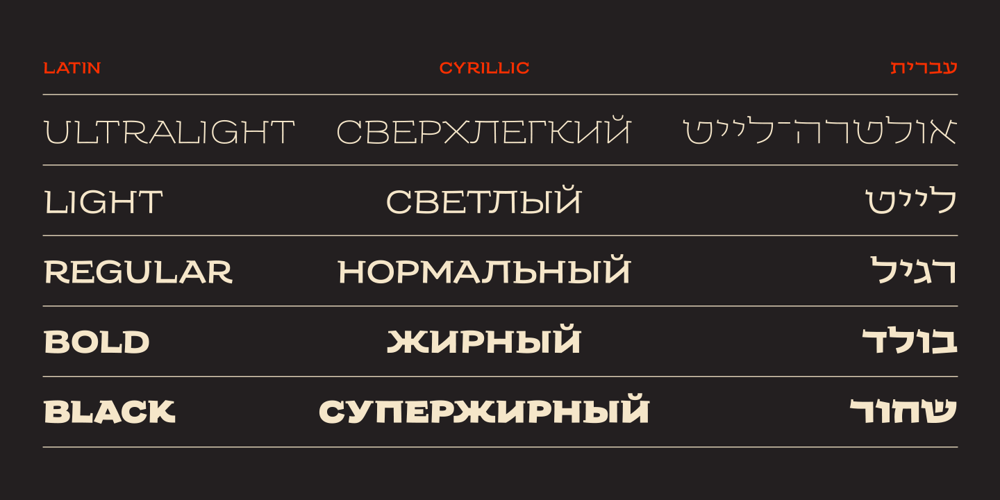
Kedem ML v1 AAA Font Family was designed by Avraham Cornfeld and published by AlefAlefAlef. Kedem ML v1 AAA contains 5 styles and family package options. Kedem is a multilingual serif font inspired by heritage posters from the time of Israel’s national founding. The font is characterized by wide letters set at unusual angles, distinctive negative spaces, an upbeat cadence and a free and nostalgic spirit. Kedem spans five weights, including “Ultralight” – a monoline inline style. As the weight of Kedem increases, the contrast between its serifs and the shape of its letters is magnified. Kedem supports Hebrew, English and Russian (designed by Anna Khorash), as well as 181 additional Latin and Cyrillic languages.